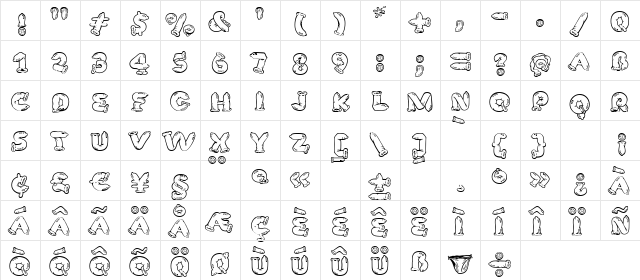
SafeFontGD Regular Font Preview
SafeFontGD Regular
SafeFontGD Regular Font Details
Design Context for SafeFontGD Typeface
SafeFontGD is a composed and adaptable typeface that performs quietly and consistently across a wide range of design contexts.